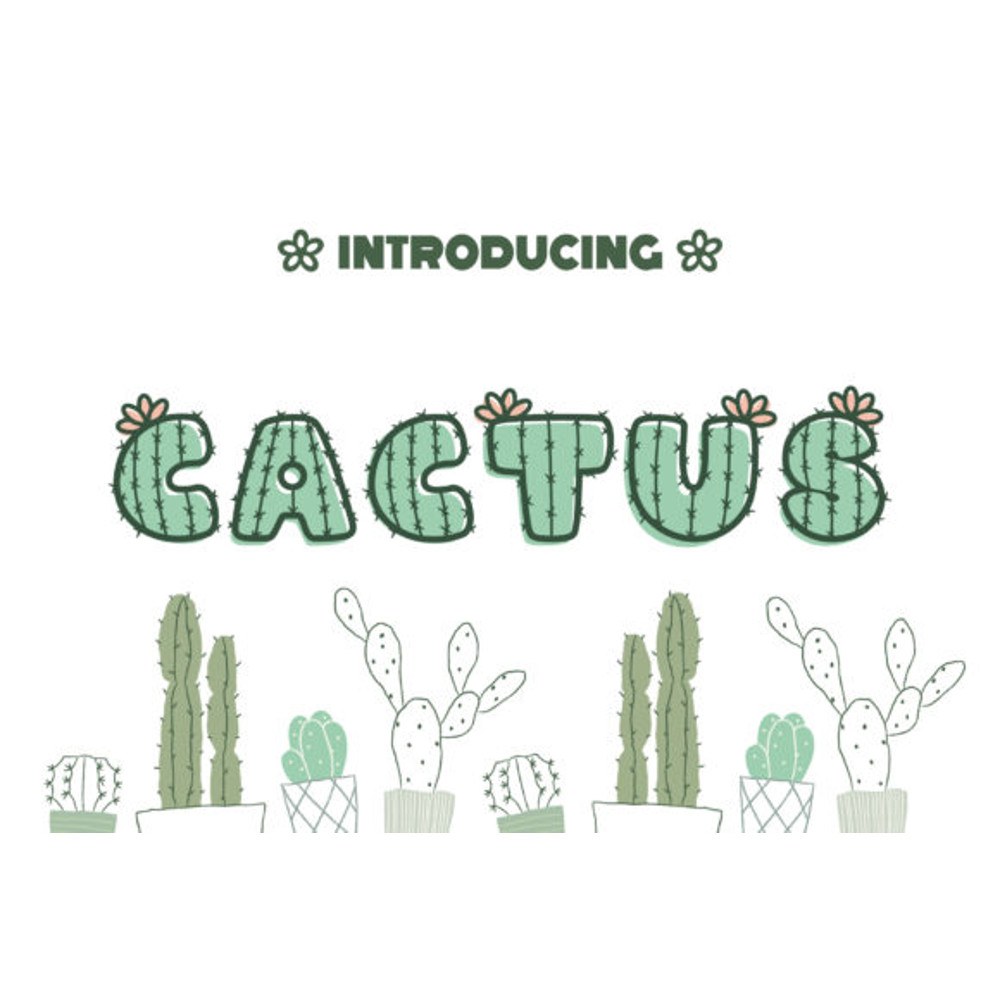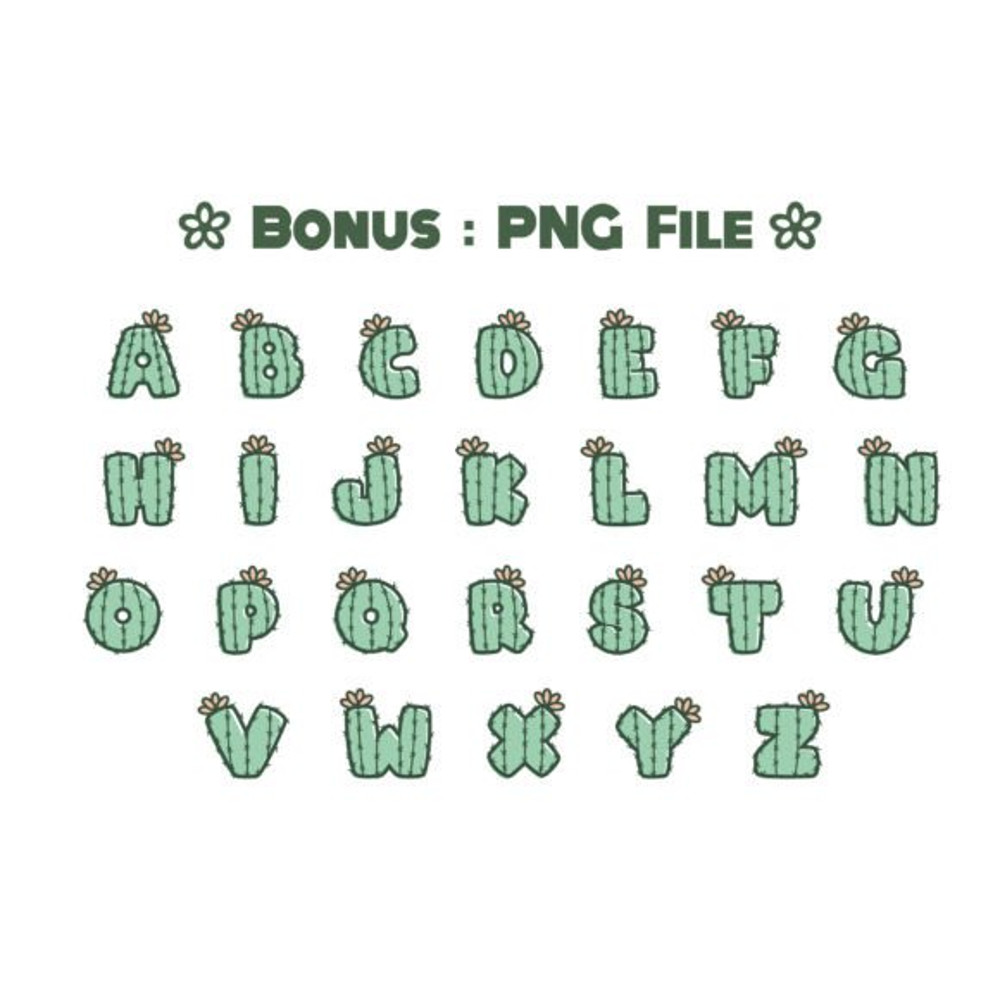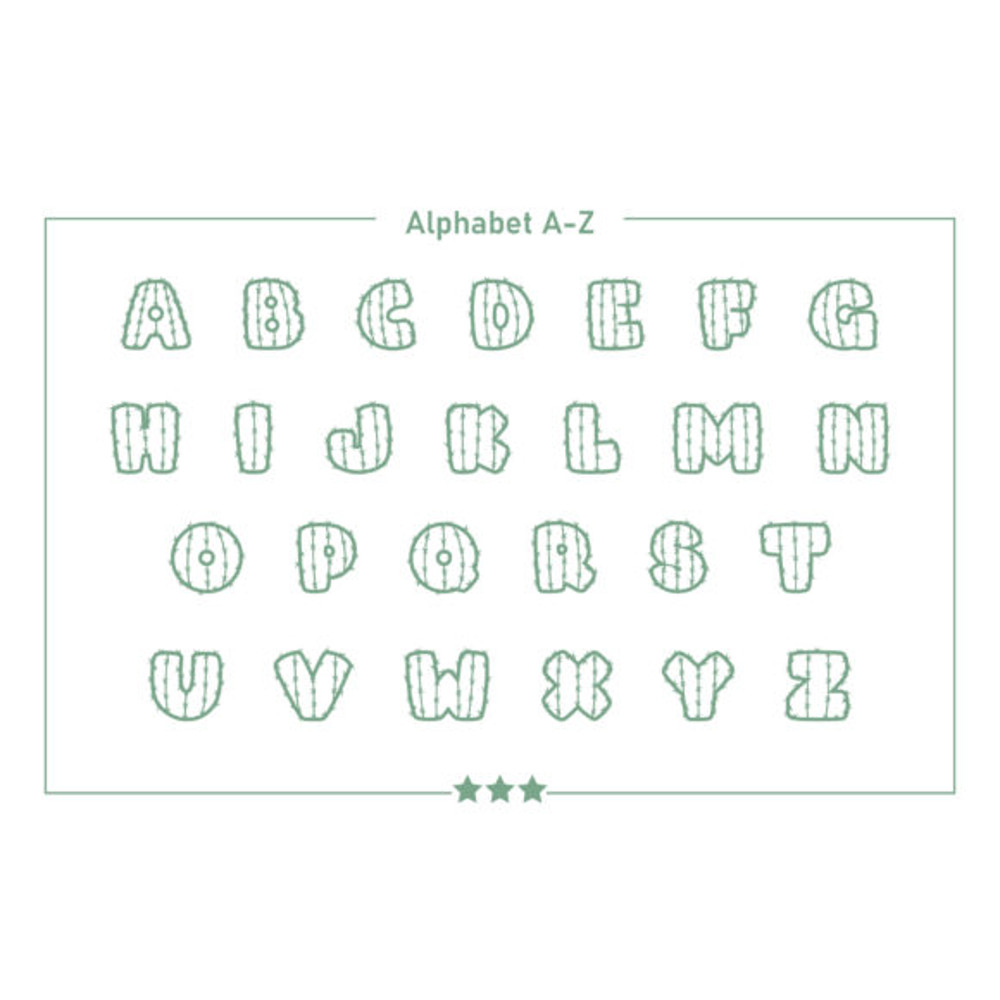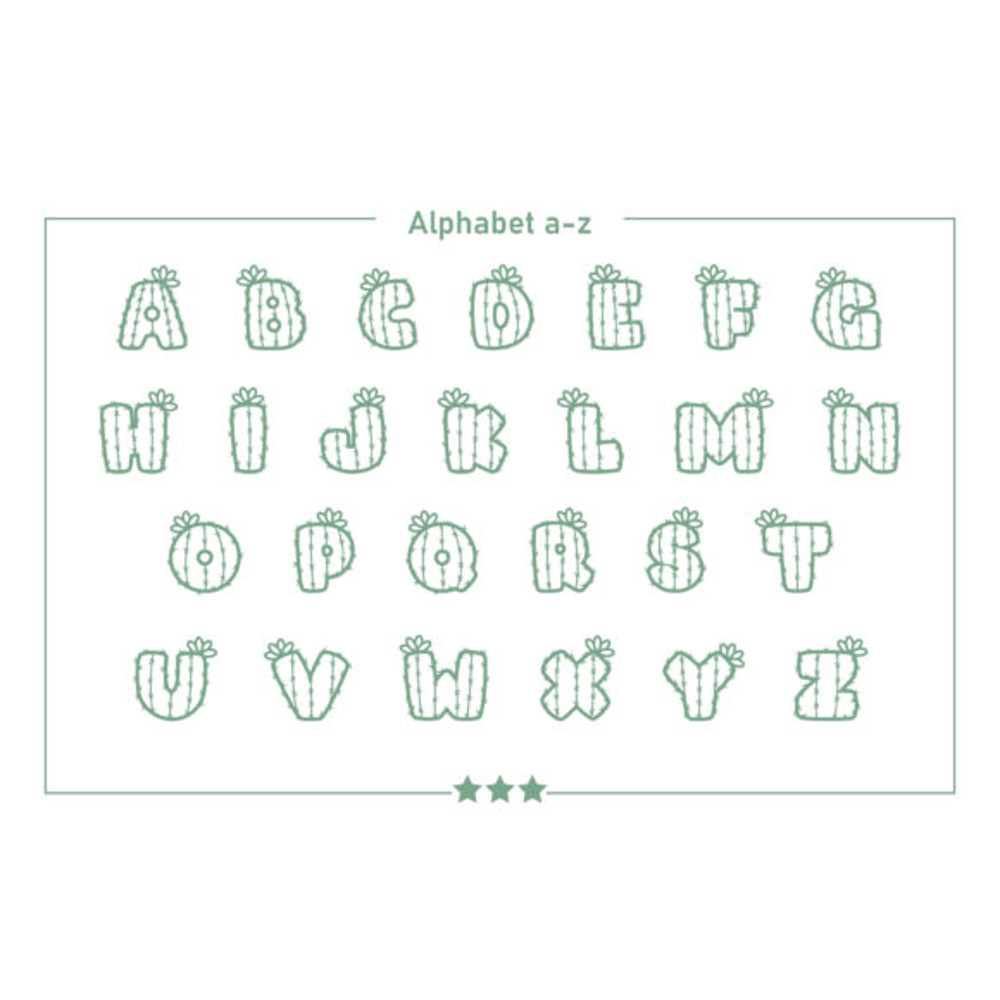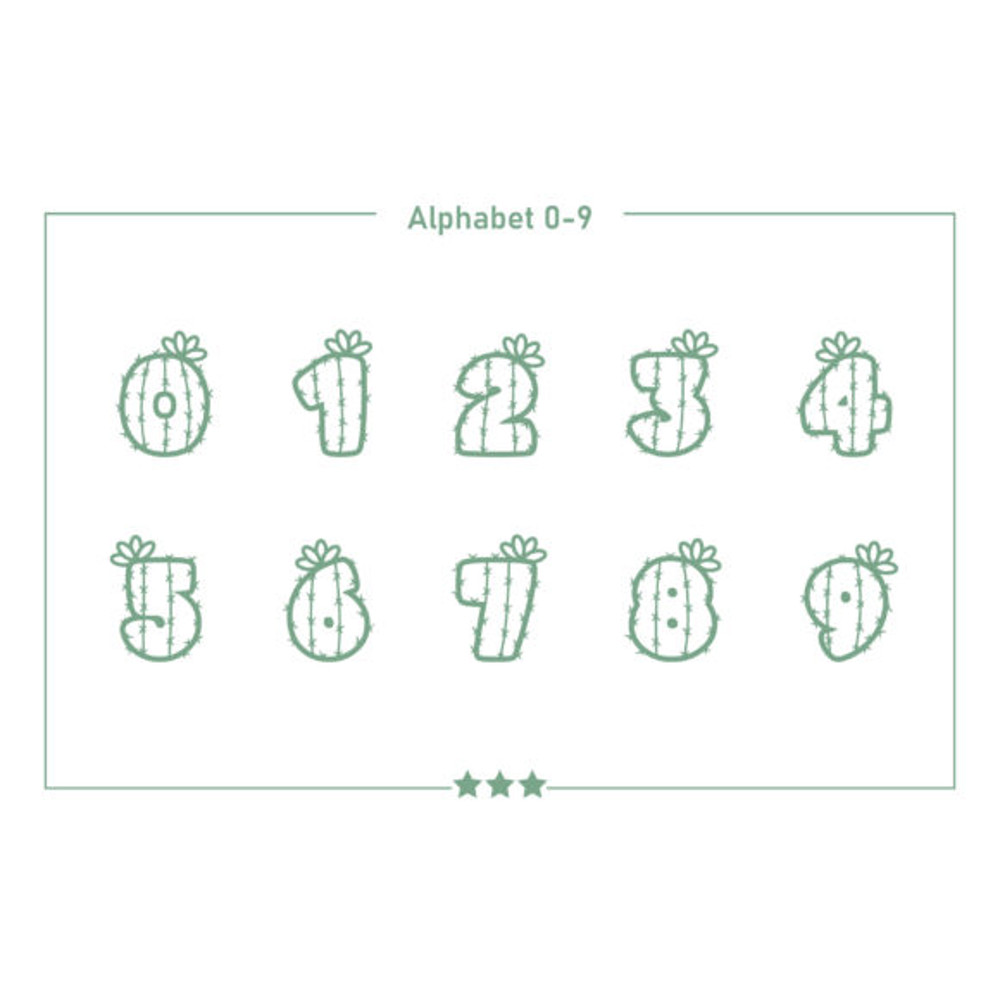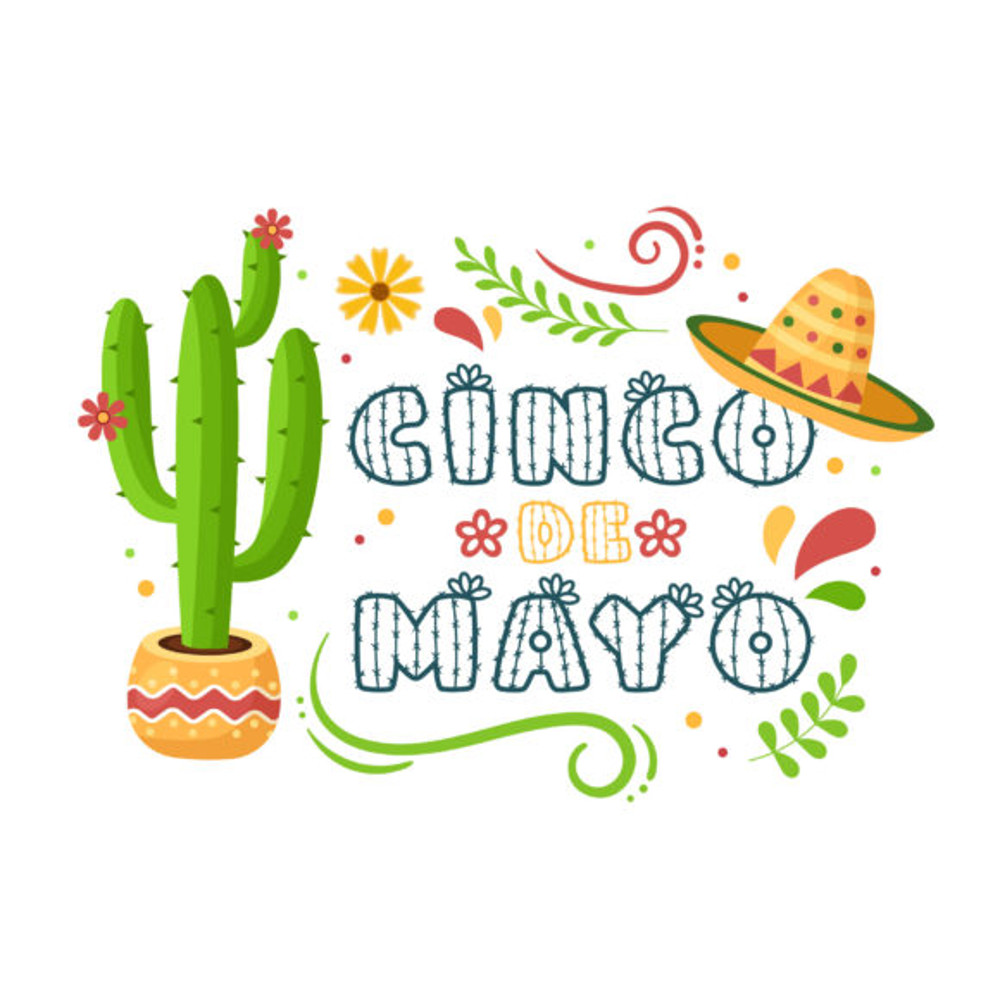
Cactus Font
Cactus is a decorative font designed in a cute and fun cactus style. It may be used for a variety of occasions such as children’s projects, blog posts, logos, branding, ads, invitations, greeting cards, planners, photo albums, decorations, and much more. Whatever the topic, this font will be a wonderful asset to your font library, as it has the potential to enhance any creation. Add it to any of your designs, and enjoy the results!